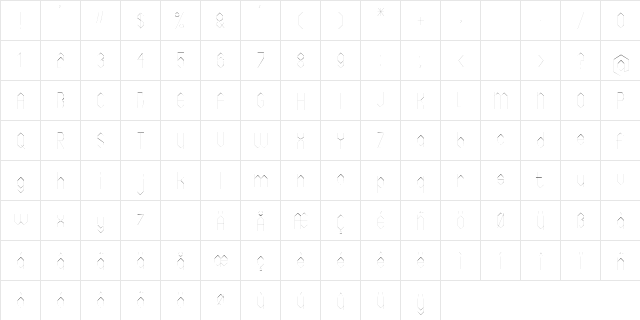
Cornwall Regular
Design Context for Cornwall Typeface
Cornwall is a composed and adaptable typeface that performs quietly and consistently across a wide range of design contexts.